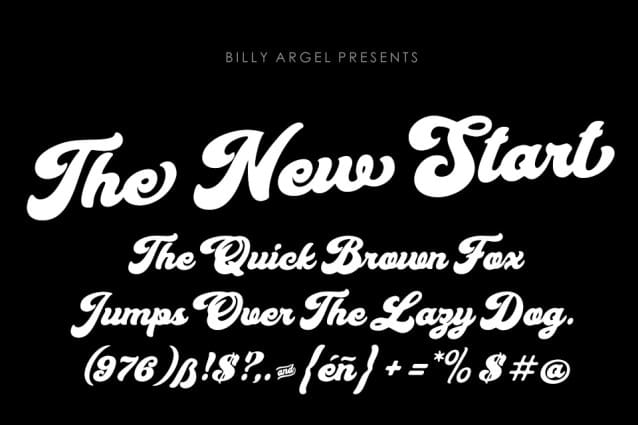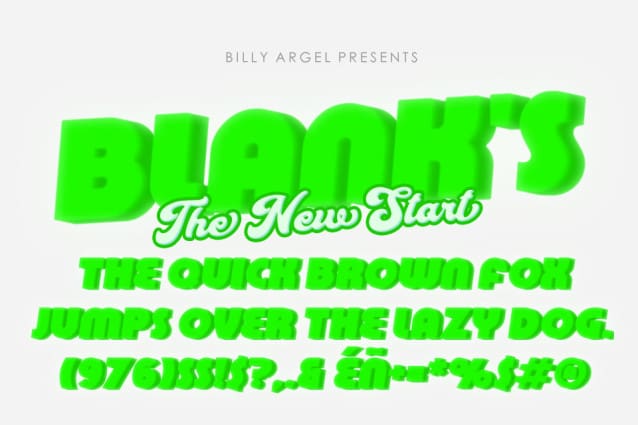
Blank’s Script Font
Blank’s Script Font, perfectly fit for branding, watermarks, logos, merchandise, promotional items, monetization of videos and YouTube channels, collections of clothing, t-shirts, portfolios, crafts, layouts, CDs, labels, etc …